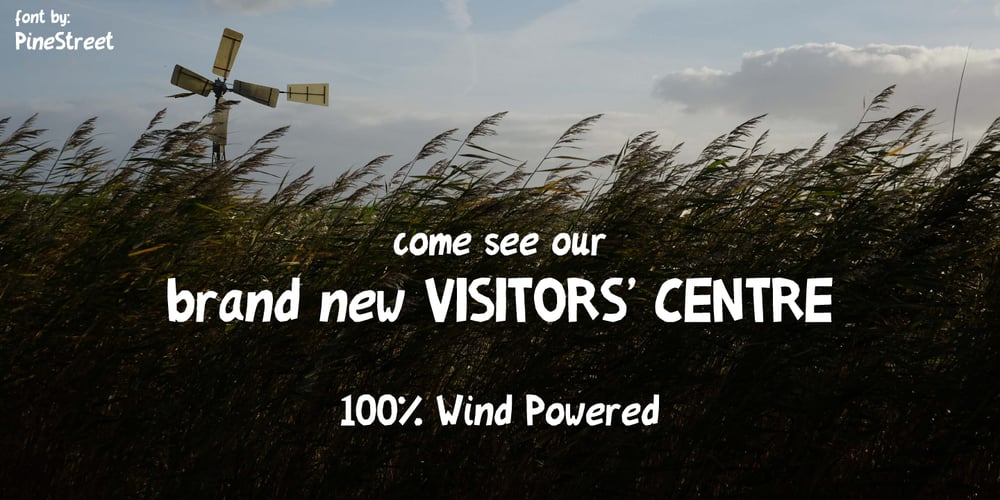
PaperCutAlmond Font Family was designed by Pieternella Luttikhuizen and published by PineStreet. PaperCutAlmond contains 1 styles and family package options. PaperCutAlmond breathes just the hands-on self-made authentic happy feeling you may be looking for. Each and every glyph is based on a paper letter cut by hand with a pair of scissors by me in my studio. Ideal for packaging for organic products, illustrated goods, book covers, editorial illustrations and other freestyle projects.